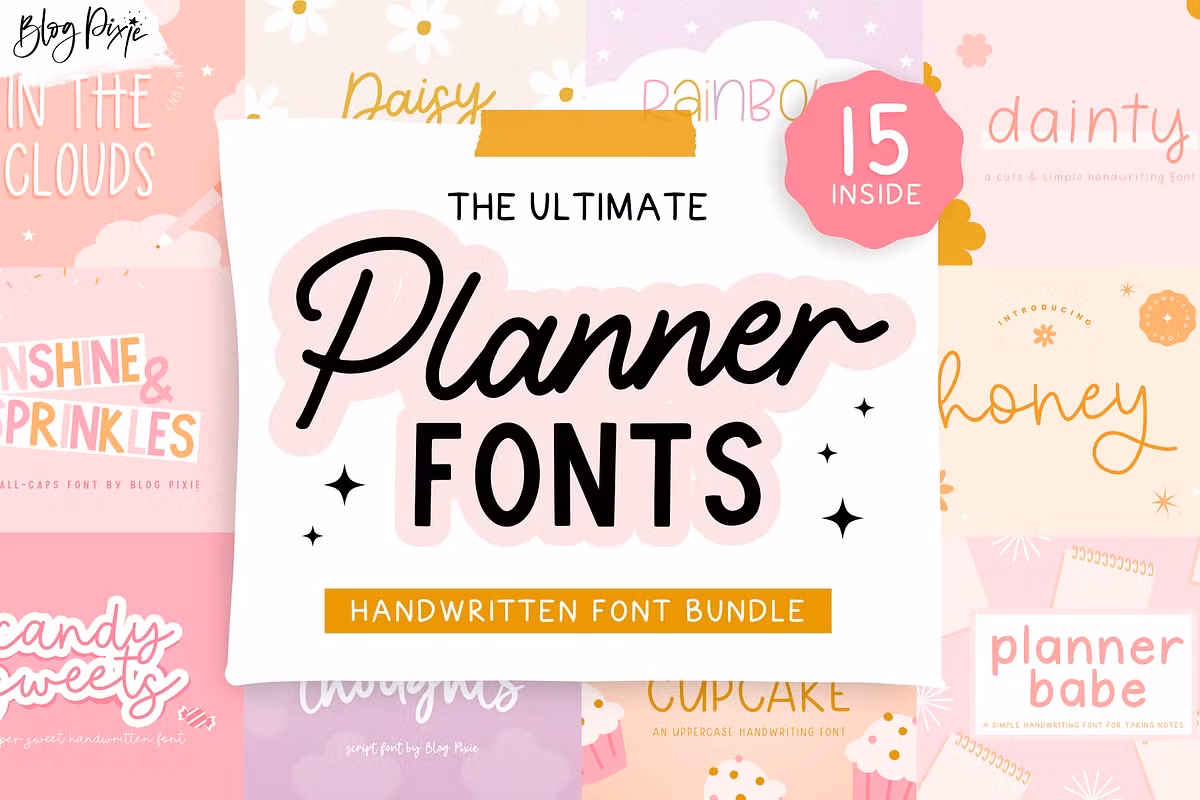
Please note that you must purchase this font bundle for commercial use. You can download Planner Font Bundle for free, strictly for personal testing purposes only. The Planner Font Bundle is a carefully curated collection of versatile, stylish fonts designed to suit a variety of projects. Whether you're designing for planners, journals, stationery, logos, or branding, this bundle has everything you need. Planner Font Bundle Free Download includes both elegant script fonts and clean sans-serifs, perfect for combining in your designs.
This bundle provides a range of weights, styles, and creative fonts that offer maximum flexibility for any project—ideal for digital planners, invitations, business cards, or custom stationery. The fonts in this bundle include uppercase and lowercase letters, numerals, punctuation, and multilingual support, ensuring broad usability.
Whether you’re designing a professional brand, a creative planner, or personal stationery, the Planner Font Bundle adds both elegance and versatility to your typography.